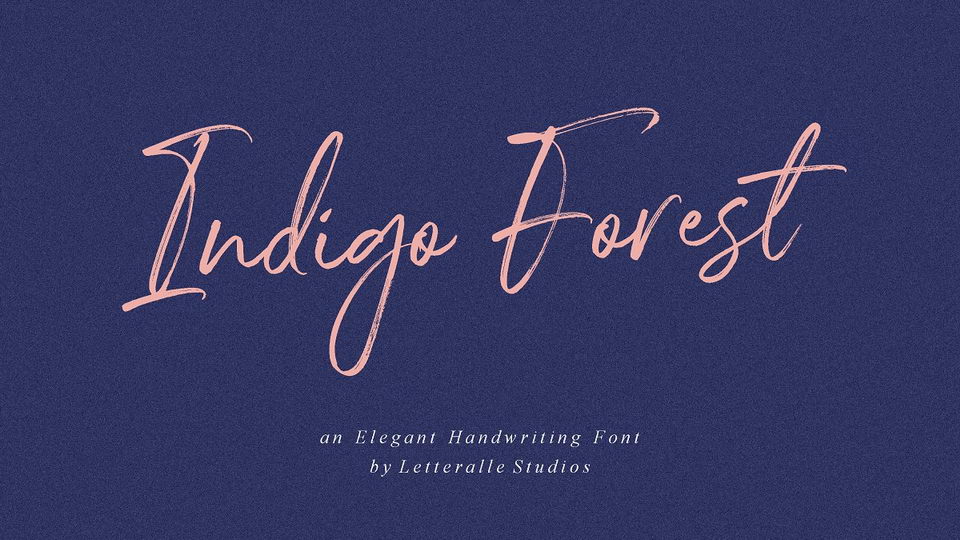
Download Indigo Forest font, a casual and charming brush script with a natural handwritten style. Indigo Forest font issuitable to fill your design needs such as, branding, social media, merch, ads, book title, packaging, etc.
Designer: Letteralle Studio